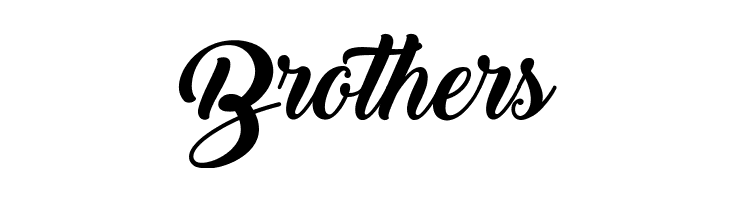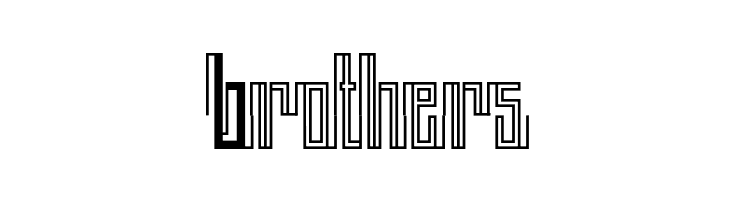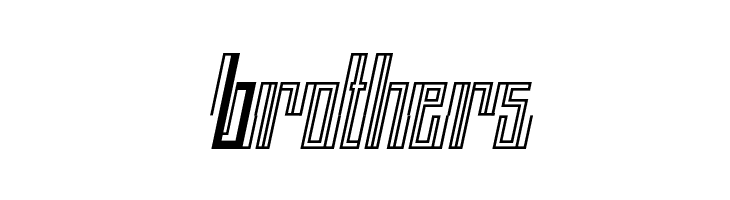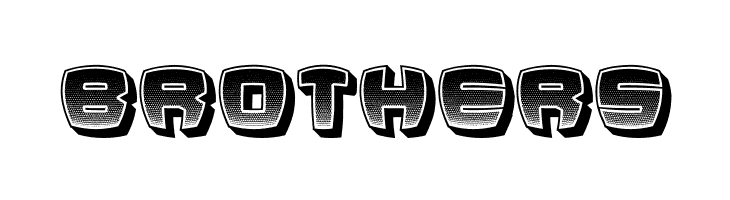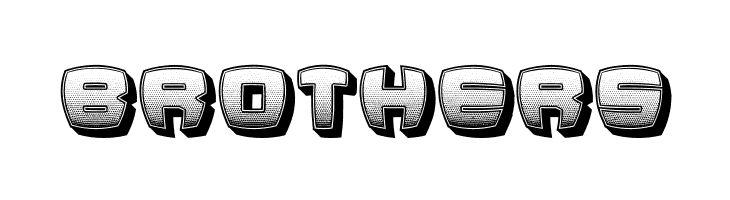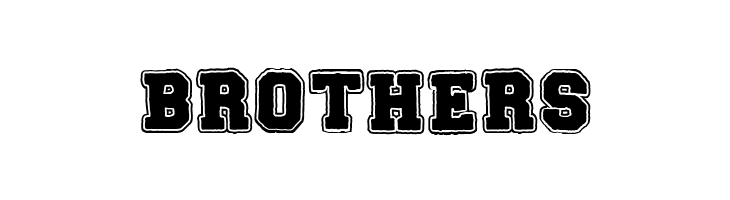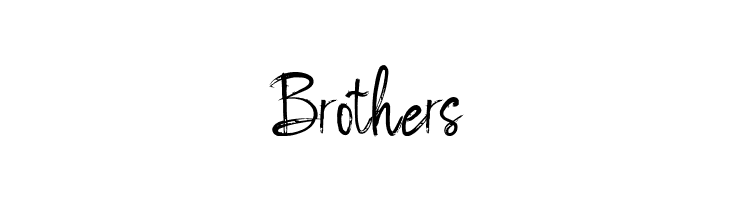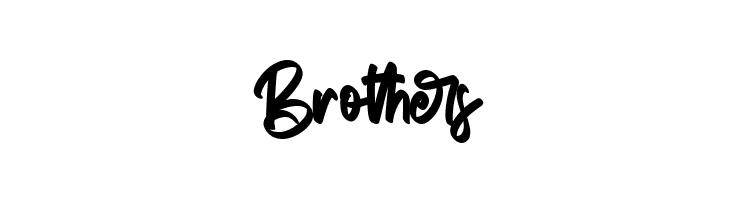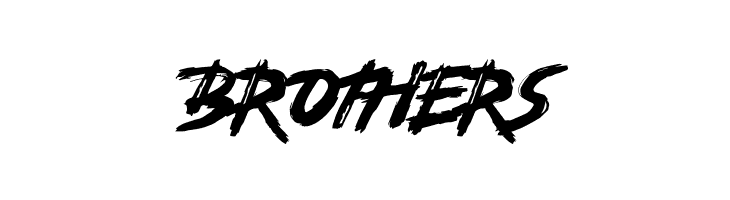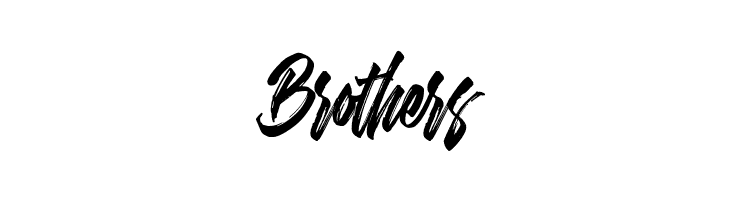
A delicate, handwritten script font with flowing, connected letters.
A bold, dynamic brush script font with energetic strokes and expressive flair.
A bold, brush-style font with dynamic and expressive strokes.
A bold, three-dimensional font with a retro, blocky style and shadow effects.
A bold, three-dimensional font with dynamic shadow effects.
A lively and expressive script font with flowing, cursive letterforms.
A bold, graffiti-inspired font with a playful, hand-drawn style.
A playful, rounded font with bold curves and a friendly appearance.
A playful, bold, and hand-drawn style font with rounded edges.
A playful, casual handwritten font with smooth, rounded edges.
A geometric, maze-like font with bold, intersecting lines and a modern, architectural style.
A bold, italicized font with a modern, futuristic design.
A bold, elegant script font with flowing curves and high contrast.
A bold, expressive script font with elegant curves and fluid connections.
A lively handwritten font with fluid strokes and a casual style.
A bold, playful script font with a handwritten feel.
A bold, playful font with a hand-drawn, rounded style.
A bold, italic, and playful font with a handwritten feel.
A bold, italicized script font with smooth, rounded characters.
A playful, hollow, hand-drawn font with rounded, consistent characters.
A playful, hollow, and rounded font with a whimsical style.
A bold, playful handwritten font with rounded, irregular characters.
A playful, bold font with rounded, thick strokes and a friendly appearance.
A playful, rounded font with a friendly and approachable style.
Bold, blocky font with a vintage, distressed look.
A bold, vintage-style font with a rugged, distressed texture.
A whimsical, bold font with playful, hand-drawn characteristics.
Cartoon school-themed illustrative font with characters made from playful scenes.
A bold, outlined, and condensed font with a strong visual impact.
A bold, brush-style font with dynamic strokes and high contrast.
A dynamic, expressive handwritten font with a brush-like texture.
A bold, brush-style font with dynamic, hand-drawn strokes.
A bold, expressive handwritten font with fluid strokes.